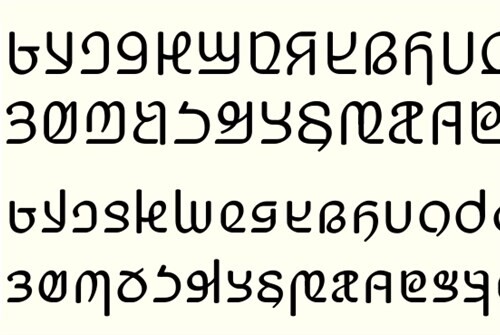
Inside the Studio: The Story of Adlam.
Two young boys from a small town in Guinea, West Africa, invented a new alphabet whose symbols better represent the sounds of the Fulani language.
In this day and age, imagine someone inventing a new alphabet for a language so that it fits the sounds better than the current one. How likely is it to succeed in being adopted and replacing the old alphabet?
Monotype Linguistic Typographer Kamal Mansour shared the story of Adlam in a recent installment of our Inside the Studio webinar series.
Fulani, a language used across several West African nations, had always been a mostly oral language. Locals could express the language in writing through the Arabic alphabet, as people who learned Arabic through religious courses adapted those letters for Fulani. But the spelling was never fully unified, which made reading the language complicated and confusing. There were also different uses of the Roman alphabet for parts of Fulani, but they varied by country.
“There was no standard written tradition for Fulani,” Mansour explained, “so while there had been writing, it was not unified.”
Two young boys from a small town in Guinea, West Africa, invented a new alphabet whose symbols better represent the sounds of the Fulani language. The characters were mostly developed from scratch, and aimed to reflect the individual sounds of the language. The brothers tested their language with locals throughout the Fulani-speaking area, and incorporated feedback into the development of a final character set.
“The brother spoke Arabic, so you can see some vague similarities with Arabic,” Mansour said. “But the glyphs really are scratch designs. The shapes developed to be more readable over time, using feedback from the people who would use them.” Like Arabic, Fulani is read from right to left.
In time, the news of Adlam spread to neighboring countries where Fulani is also spoken. As their success became evident, the two brothers realized that this new alphabet had to be supported on computers if it was to survive.
Needless to say, this presented a host of intimidating challenges, which Mansour outlines in the webinar. How does a new alphabet become computer-ready? What is needed to exchange digital text between digital devices? How do you display text for a new language on the web? Have you ever contemplated what it takes to guarantee this English text is readable around the globe?